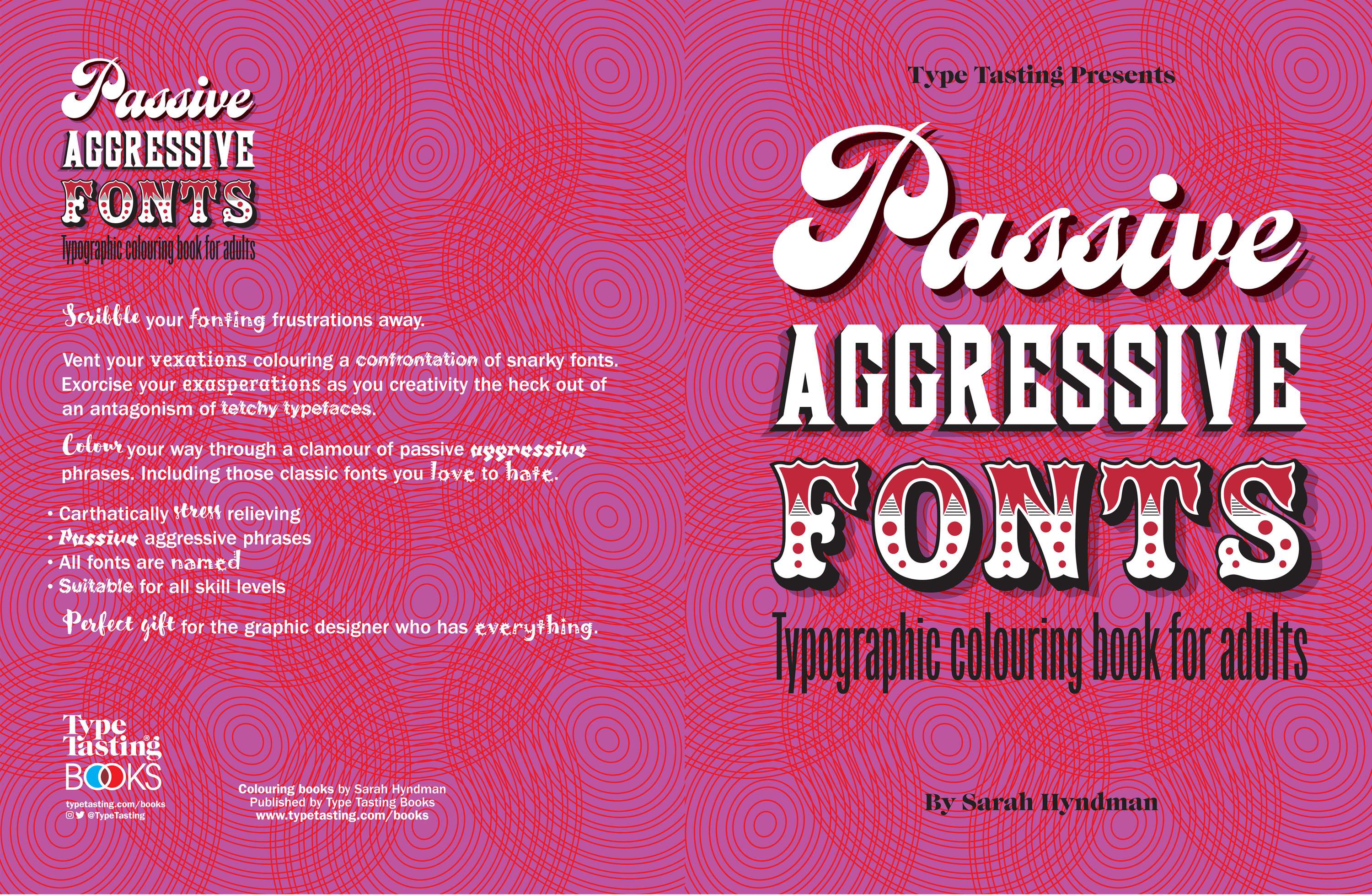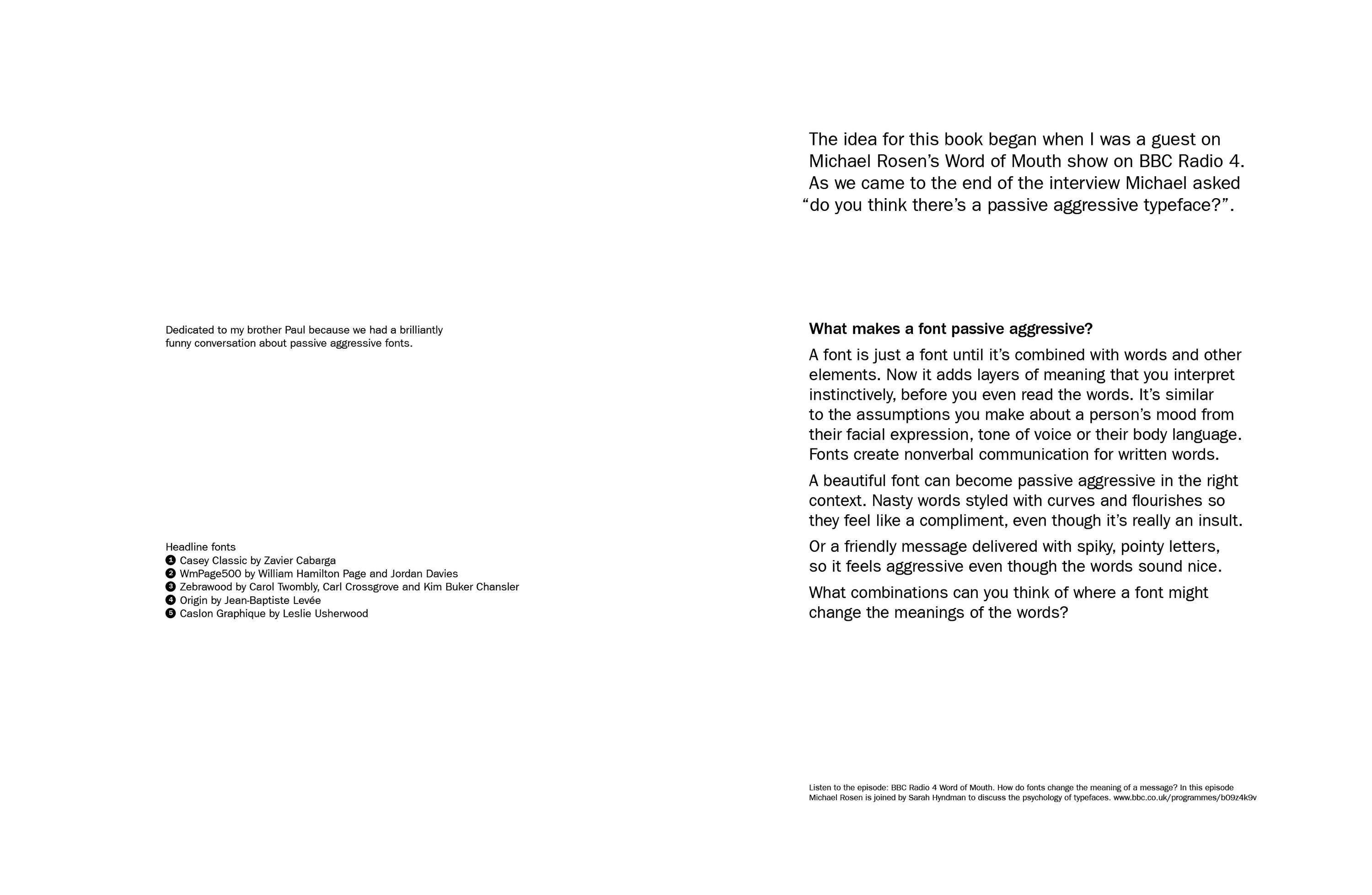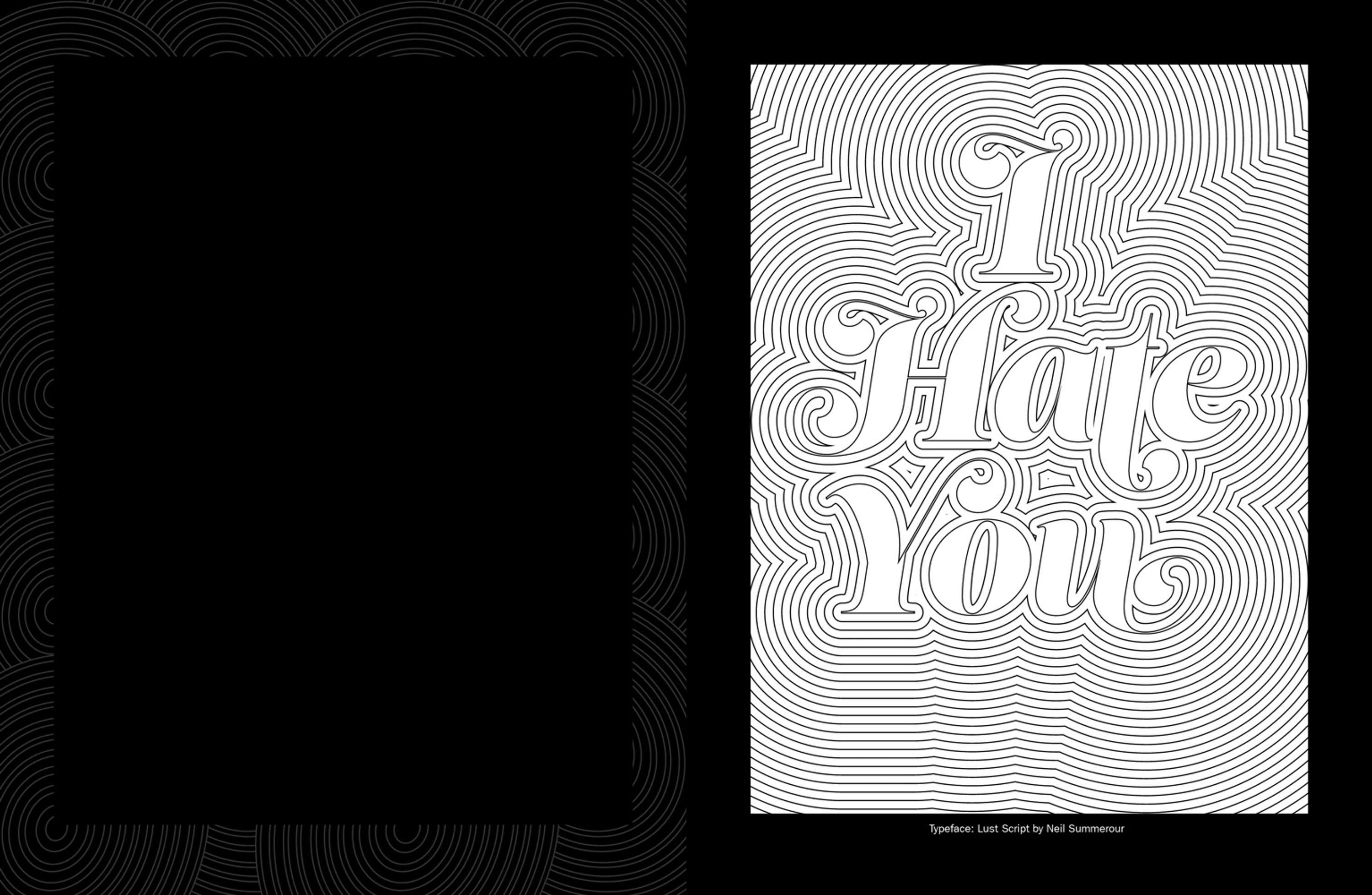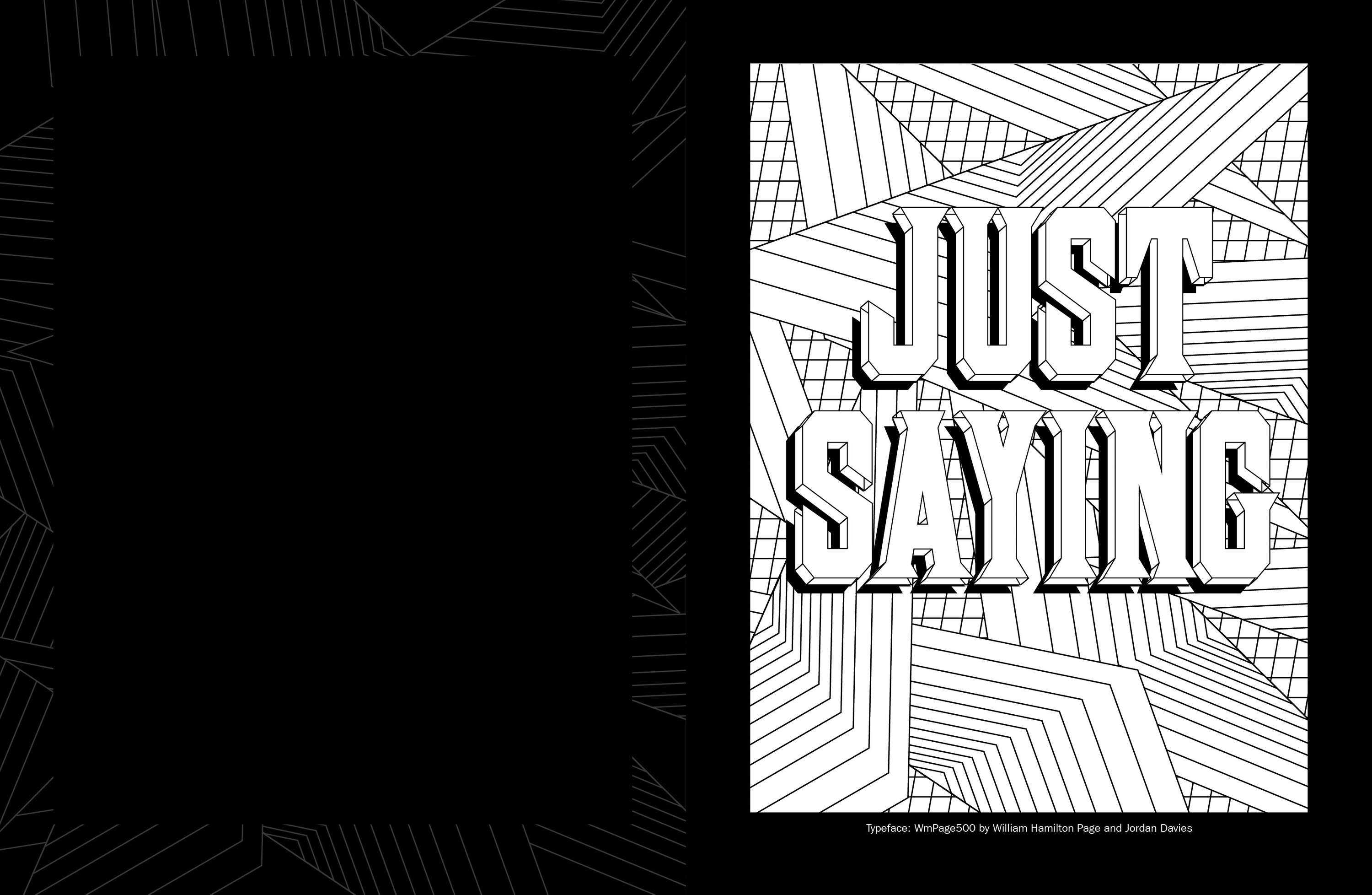
Passive Aggressive Fonts: Typographic colouring book for adults
• Sarah Hyndman
Colour your fonting frustrations away.
Passive Aggressive Fonts: Typographic colouring book for adults by Type Tasting with Sarah Hyndman
Vent your vexations colouring a confrontation of snarky fonts. Exorcise your exasperations as you creativity the heck out of an antagonism of tetchy typefaces. Scribble your way through a clamour of passive aggressive phrases. Including those classic fonts you love to hate.
•    Carthatically stress relieving •    Passive aggressive phrases •    All fonts are named •    Suitable for all skill levels •    The perfect humorous gift for the graphic designer who has everything
Passive Aggressive Fonts: Typographic colouring book for adults by Type Tasting with Sarah Hyndman